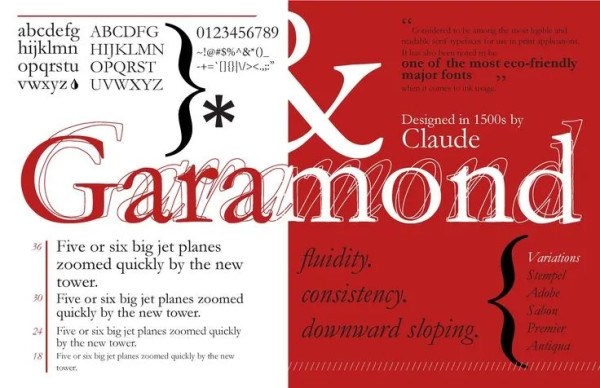
Garamond Font is really a group of numerous old-style serif typefaces, named for sixteenth-century Parisian engraver Claude Garamond (commonly spelled as Garamont in his lifetime). Garamond-style typefaces are preferred and sometimes employed, specially for printing human body text and publications.
Garamond Serif Font